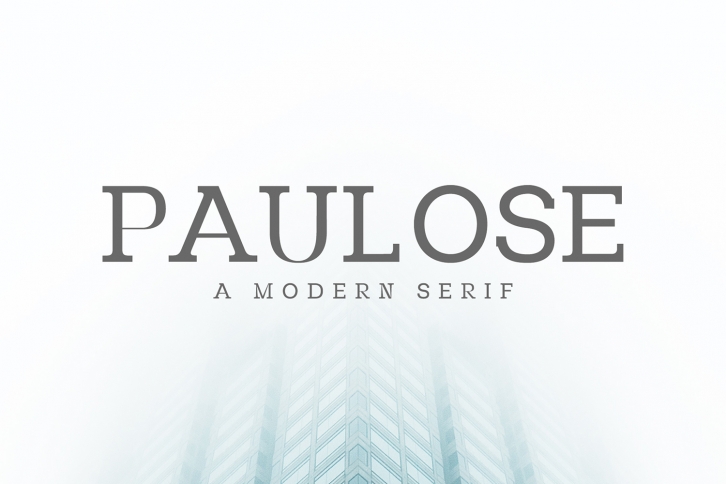
Paulose Modern Serif Font Family Download
Paulose Modern Serif Family is a beautiful font that was designed by Creativetacos. It's a great choice for designers and creatives who need such a font. It was released on January 27, 2019 and the file size is 12.57 MB. Paulose Modern Serif Family may give a more youthful, expressive and casual look to your project. It is a very beautiful, refined, elegant, and high-quality font.